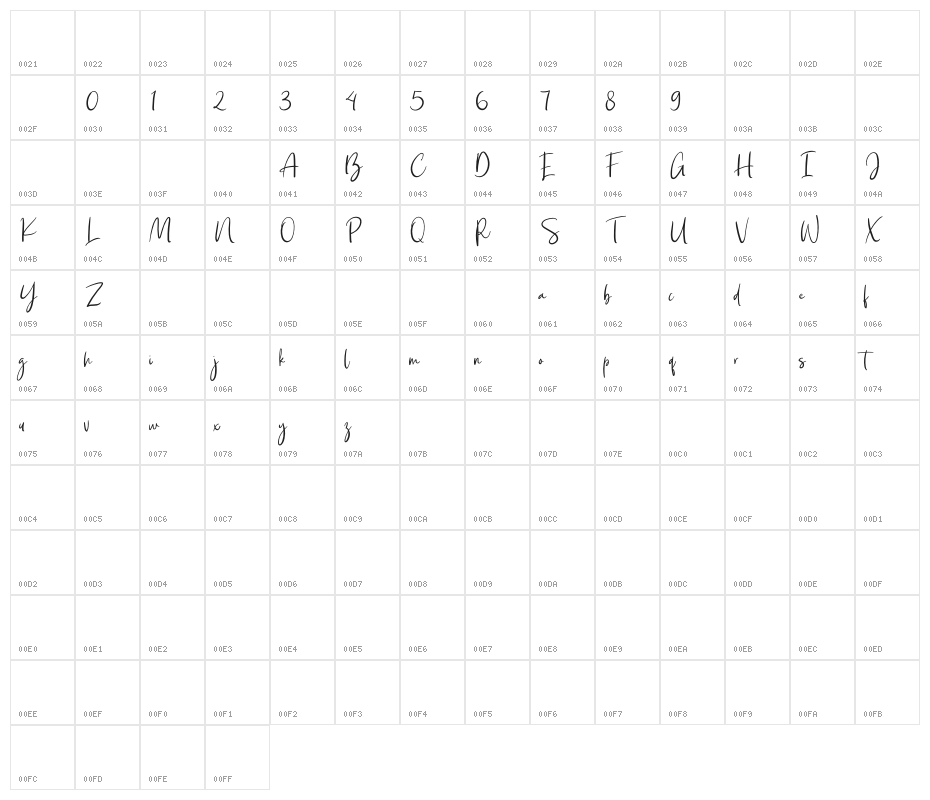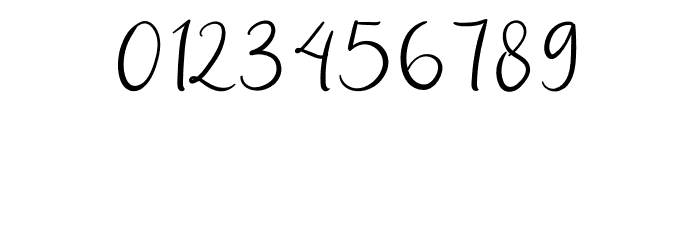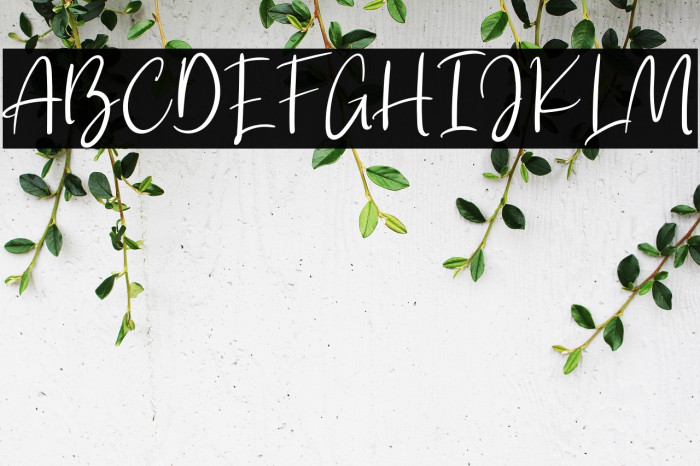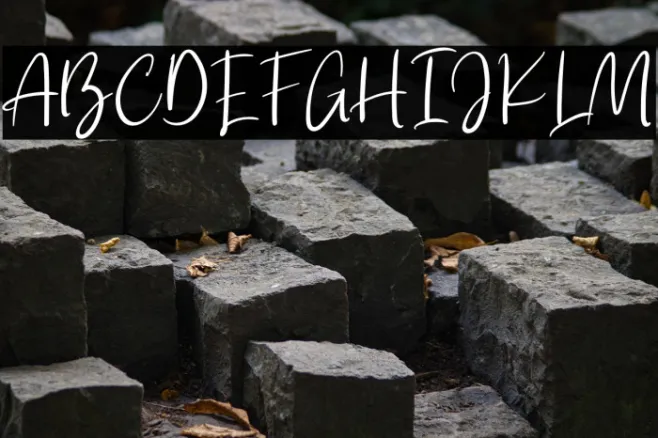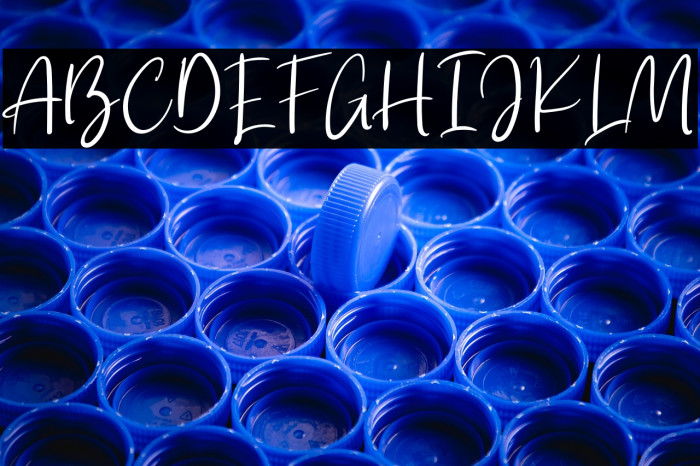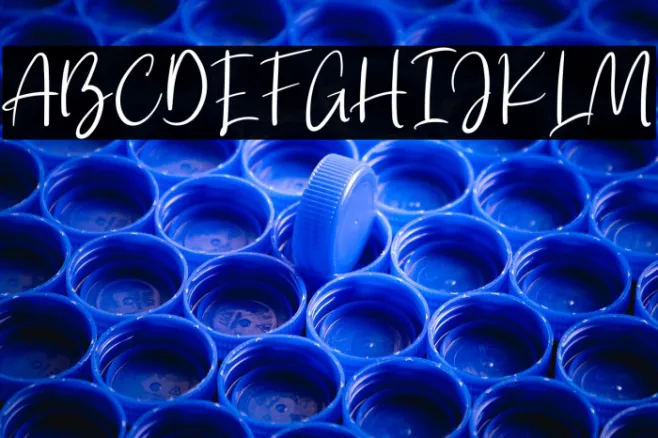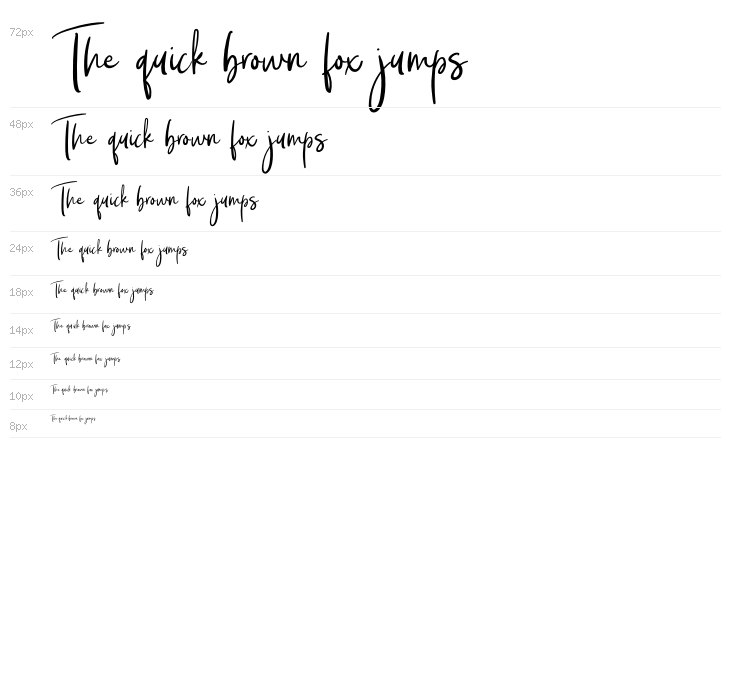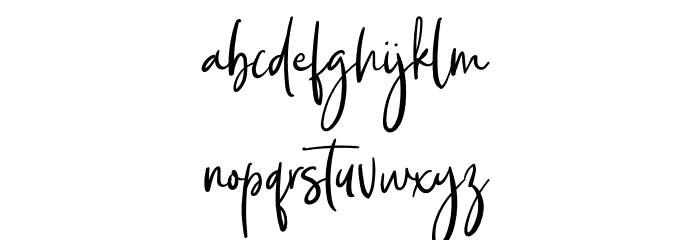
Jade Rosse Font
Jade Rosse Description
This font features a stylish, handwritten script with a modern flair. The uppercase letters are tall and elegant, with a slight slant that adds a dynamic feel. The lowercase letters are more fluid and connected, giving a sense of continuity and flow. The numerals are clear and distinct, maintaining the overall aesthetic of the script. The special characters are well-integrated, complementing the letterforms seamlessly. This font is perfect for projects that require a personal touch, such as invitations, greeting cards, or branding materials.
| Proposed Projects | Ideal for wedding invitations, personal branding, greeting cards, and elegant packaging designs. |